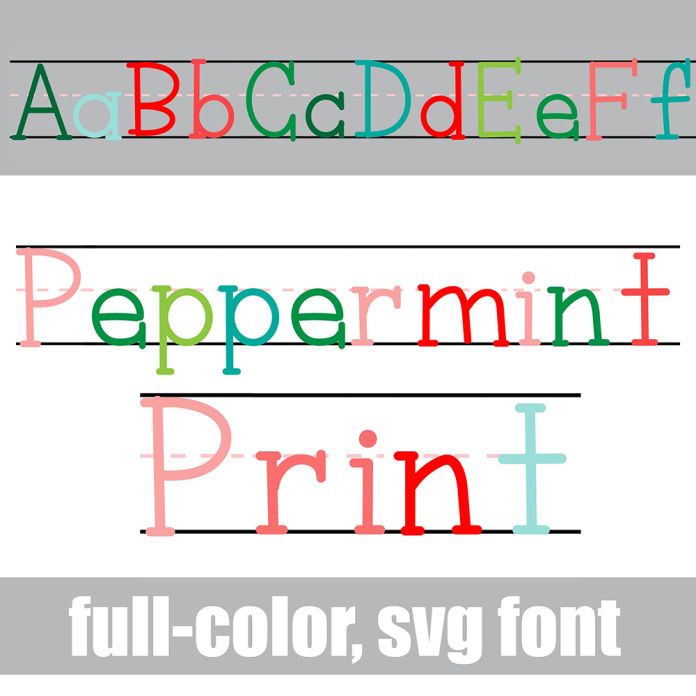
This full-color font is a traditional school print with dotted lines in a Christmas color palette. There is an alt version you can access through your system's character map that contains additional colors of all the letters. This font works best for titles, displays, posters and more. Please note color fonts will show as black in non compatible programs. This font type is compatible with Silhouette Studio